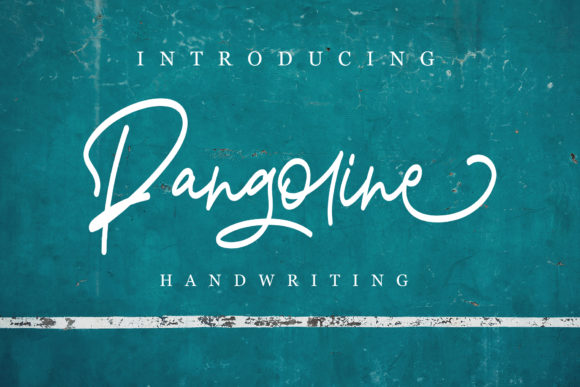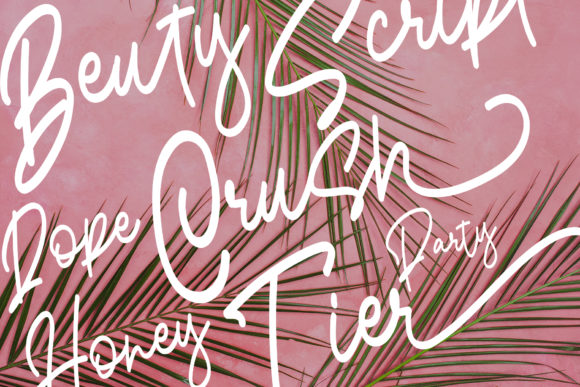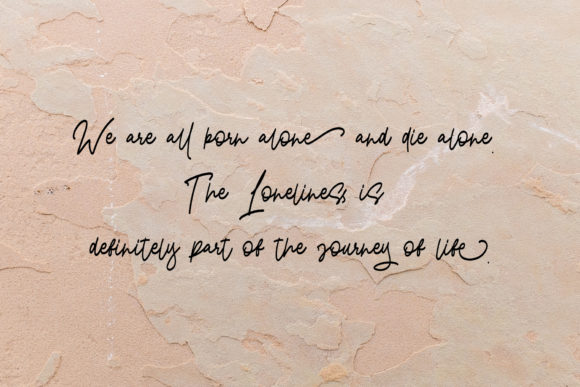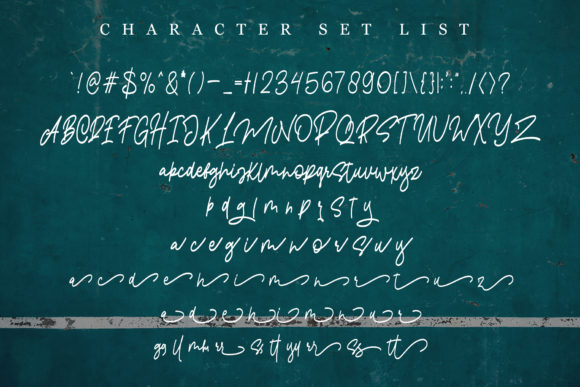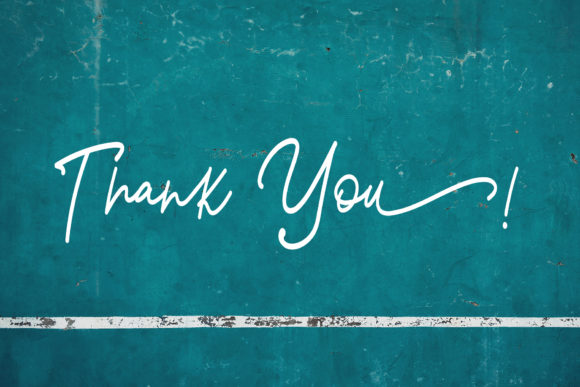
Pangoline Font
About Pangoline Font
Pangoline is a light and fresh handwritten font with an incredible charm. Fall in love with its bold elements, and update any design project with a contemporary twist.